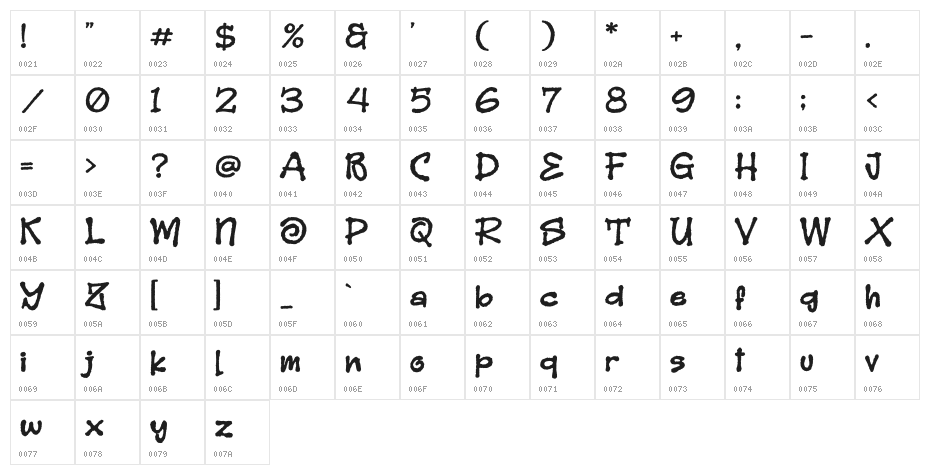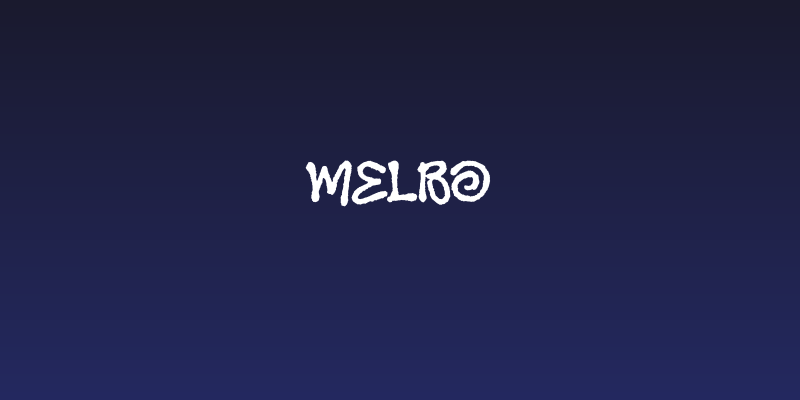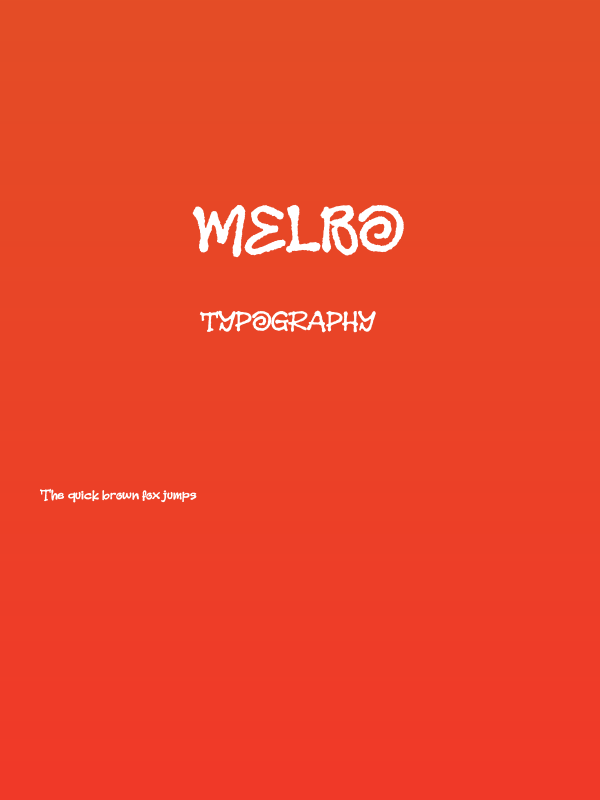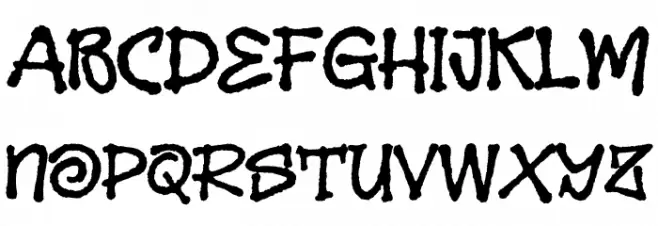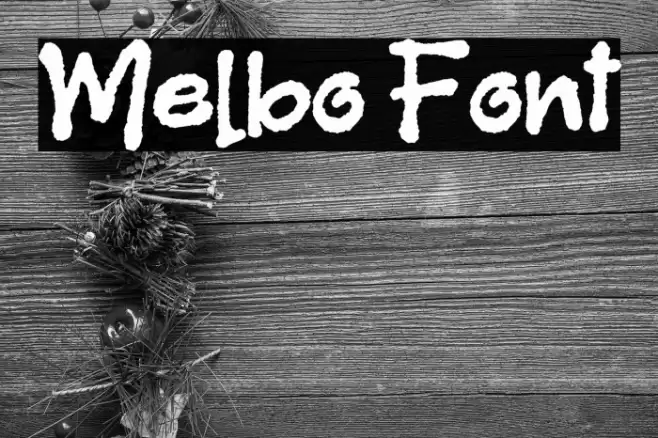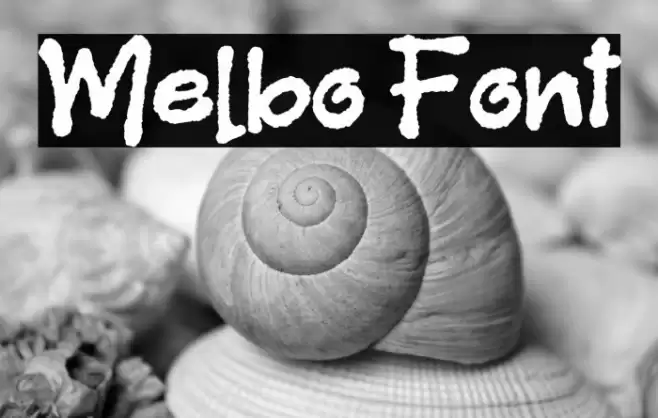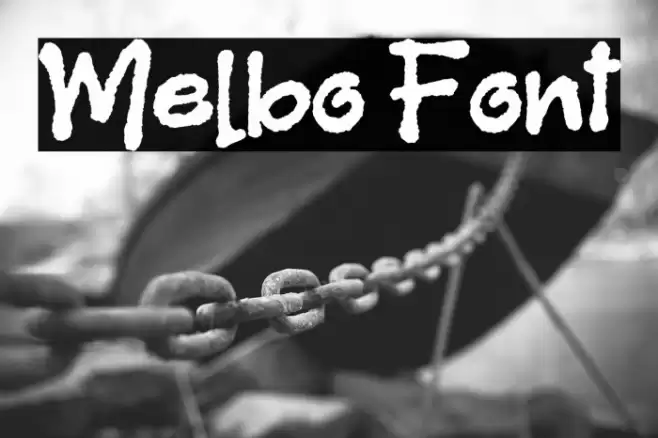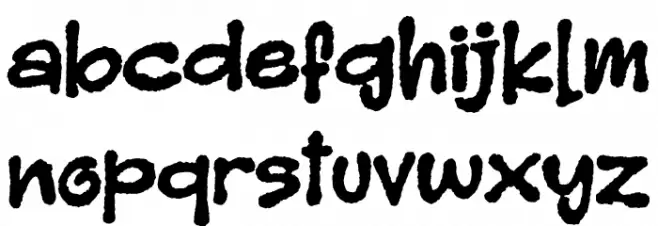
Melbo Font
Melbo Description
A playful, handwritten style font with a casual and informal appearance, featuring irregular strokes and a slightly rough texture.
| Overall Style | Casual, Playful, Handwritten |
| Use Case | Headlines, Body text, Logos, Creative projects |